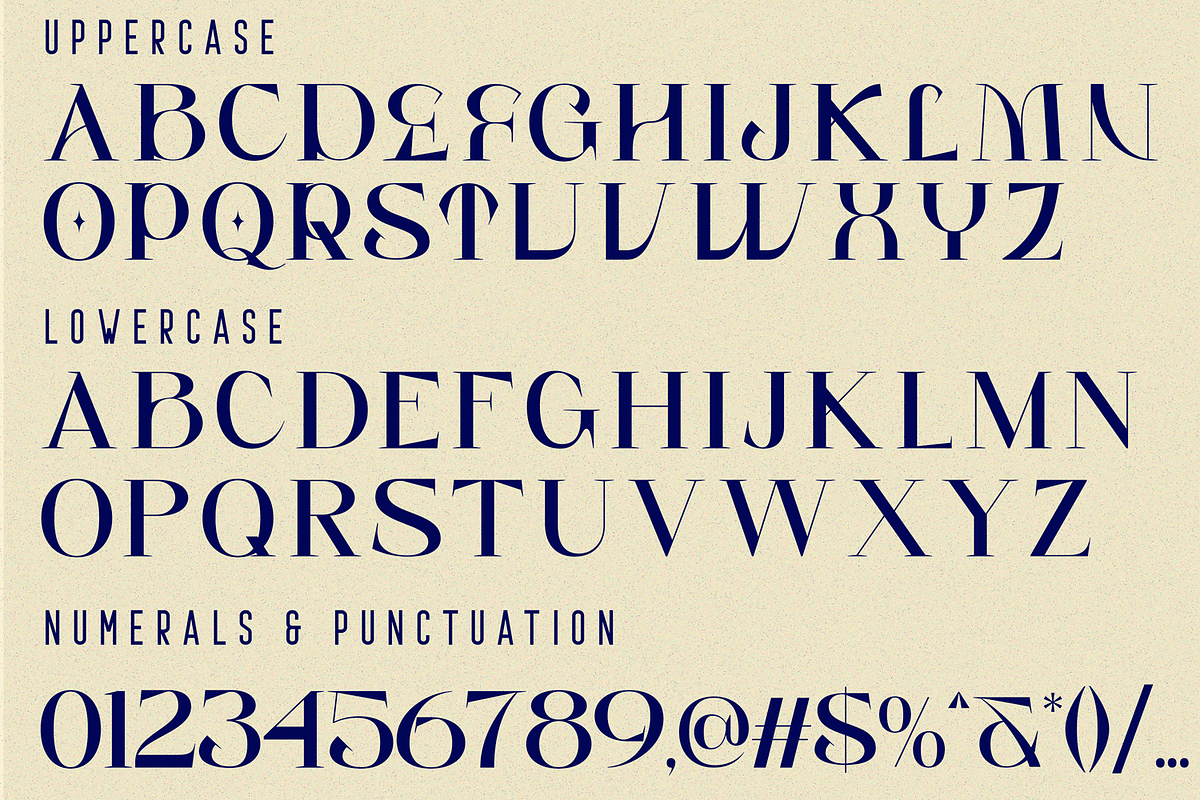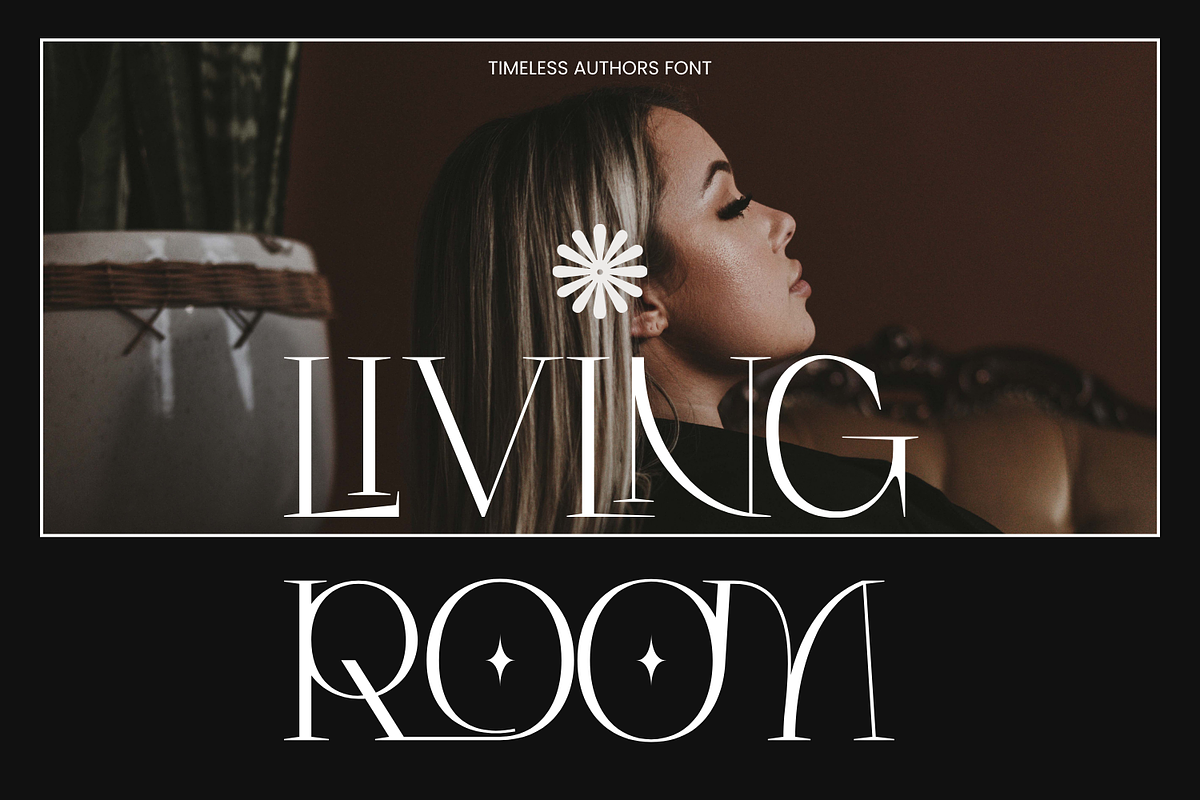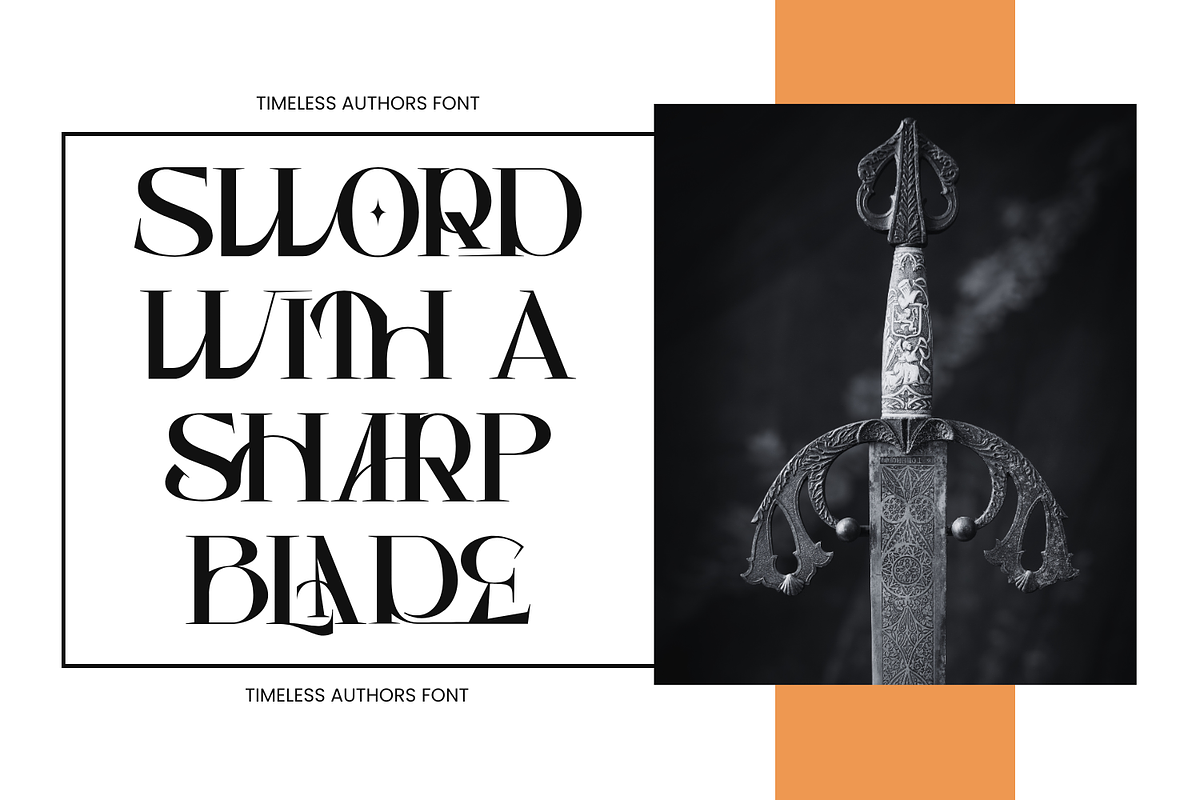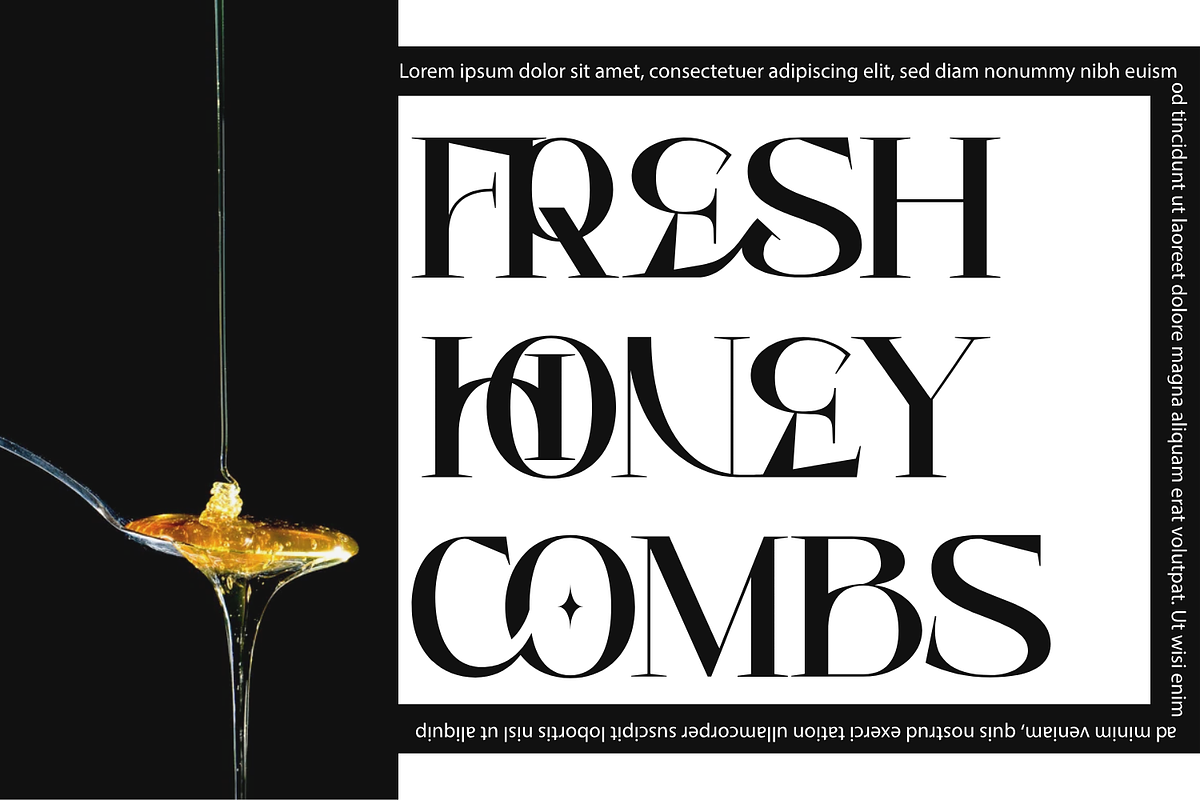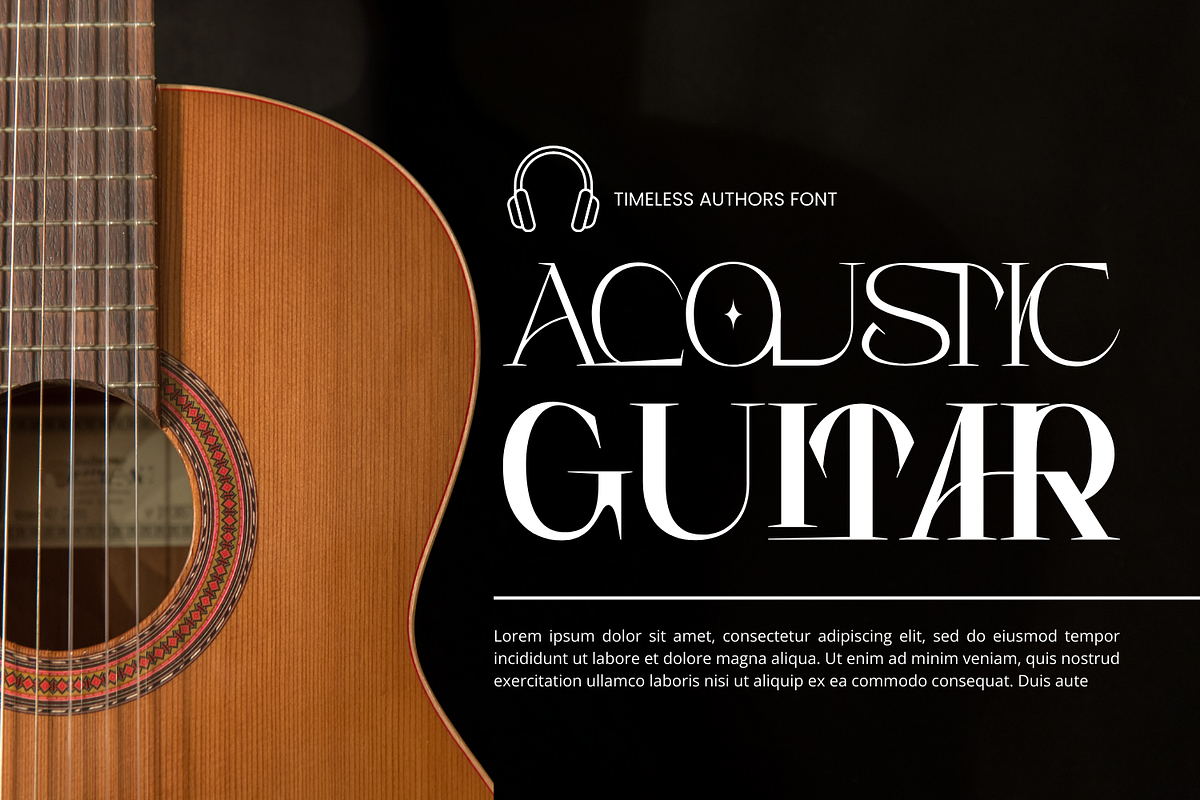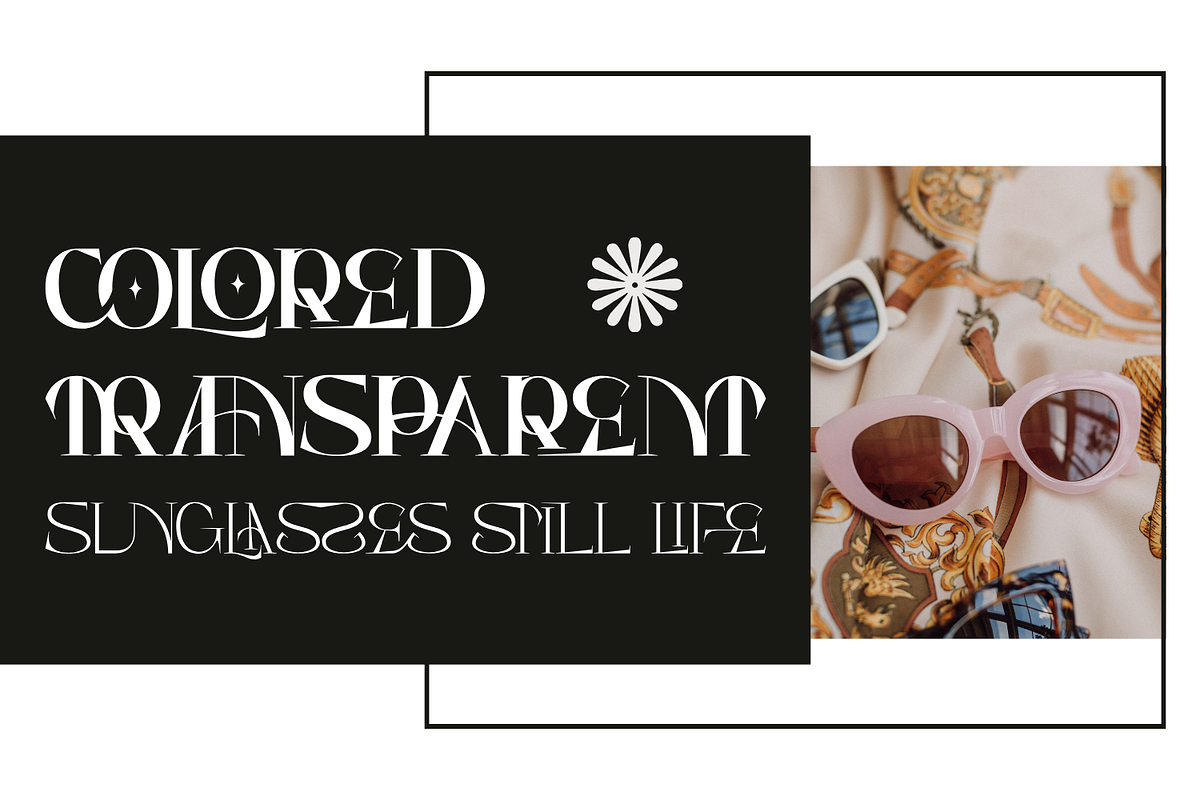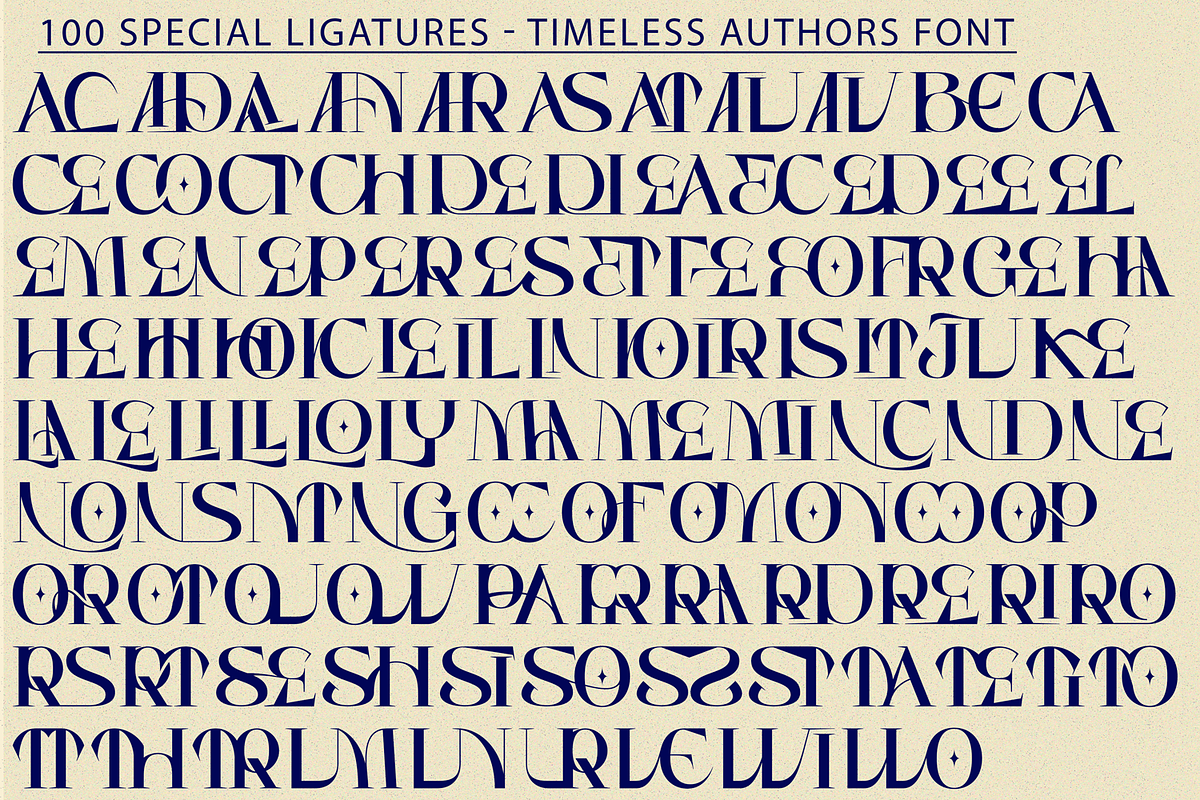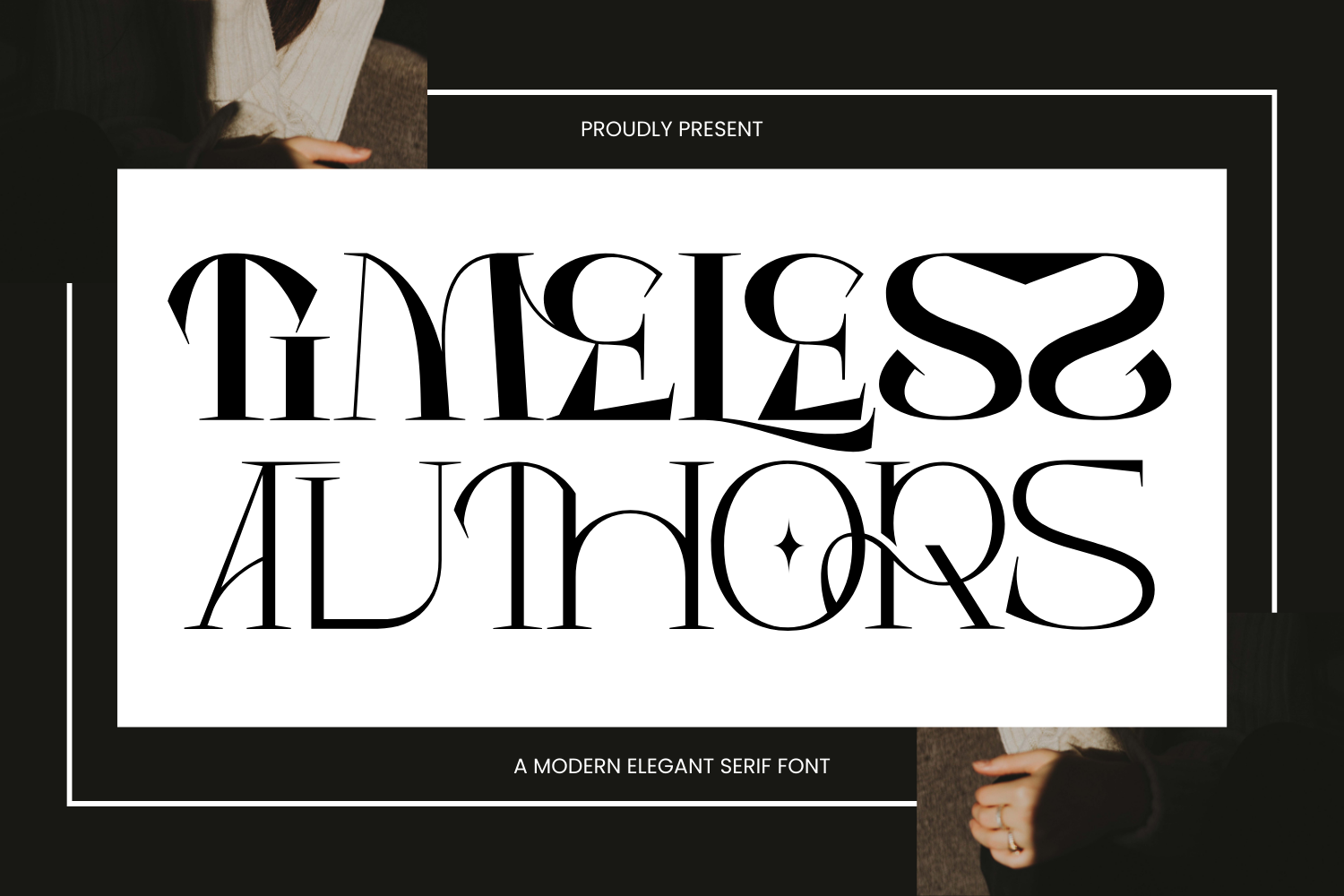
Timeless Authors Font
Timeless Authors Font is a refined serif typeface that epitomizes elegance and sophistication. It beautifully merges a classic design with a modern aesthetic, characterized by pointed terminals and elongated serifs, which lend it a high-fashion appeal with a elegant touch. It's a smooth serif font that exudes sophistication and the moment. Its stylish alterations and ligatures make this font a perfect partner for any project.
Timeless Authors was built with OpenType features and includes 100 ligatures, alternate, numbers, punctuation, and it also supports other languages.
ac ad al an ar as at au av be ca ce ch co ct de di ea ec ed ee el em en ep er es et fe fo fr ge ha he hi ho ie ic il in io ir is it ju ke la le li ll lo ly ma me mi nc nd ne ng no nt ns oc of om on oo op or ot ou ow pa pr ra rd re ri ro rs rt se sh si so ss st ta te th ti to tr tt um un ur ve wi wo
- Special Ligatures